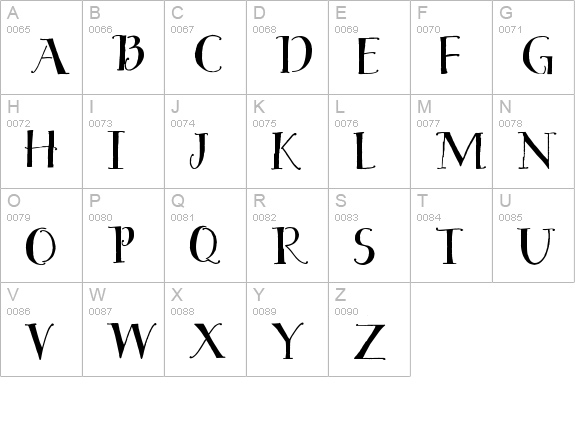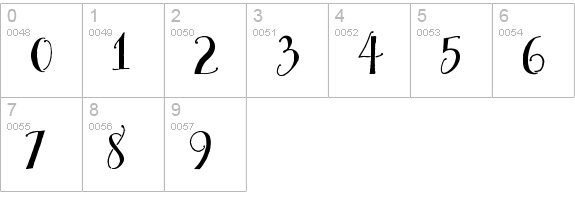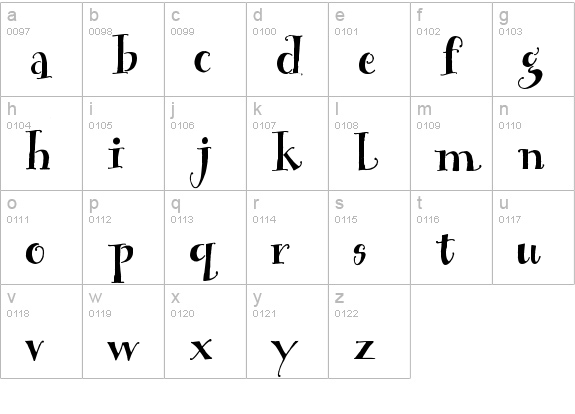
House Sitter's Club Font Details
Below you can preview House Sitter's Club in uppercase [A-Z], lowercase [a-z] and numbers [0-9]. You can also read the author's notes and license information before downloading.
House Sitter's Club font is a stylish and modern typeface that exudes elegance and sophistication. With its clean lines and sleek design, this font is perfect for adding a touch of class to any project. Whether you're working on a flyer, invitation, or branding materials, House Sitter's Club font will elevate your design to the next level. The best part? This gorgeous font is available for free download at FontsMarket.com! Take advantage of this amazing opportunity to enhance your projects with House Sitter's Club font without any cost. Don't miss out on the chance to add a touch of luxury to your designs with this stunning typeface. Download House Sitter's Club font today and let your creativity shine!